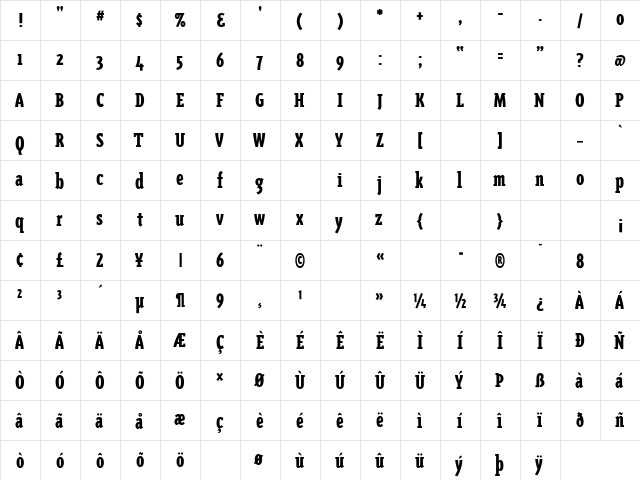
TriplexCondSerif-Black Black
Design Context for TriplexCondSerif-Black Typeface
TriplexCondSerif-Black carries the refined structure of traditional serif typography, with bracketed terminals and considered proportions that communicate credibility and craft. The condensed width makes it efficient for tight spaces without sacrificing legibility.
Pro Tip: Set TriplexCondSerif-Black with slightly loose tracking in headlines to let each letterform's detail read clearly at display sizes.